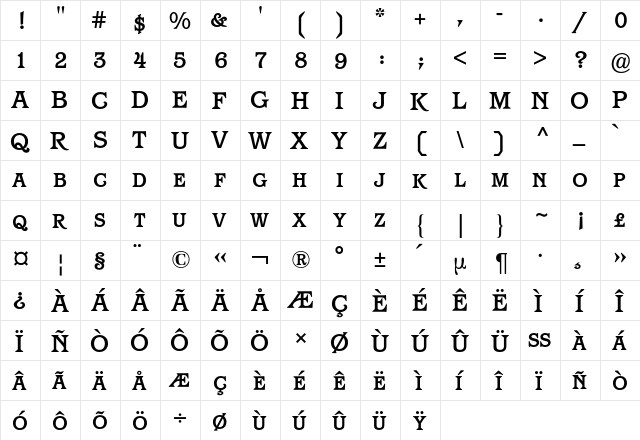
Barcelona Expert BQ Regular
Design Context for Barcelona Expert BQ Typeface
Barcelona Expert BQ takes a measured approach to typography — its balanced proportions and neutral character make it a reliable workhorse for both digital and print work.